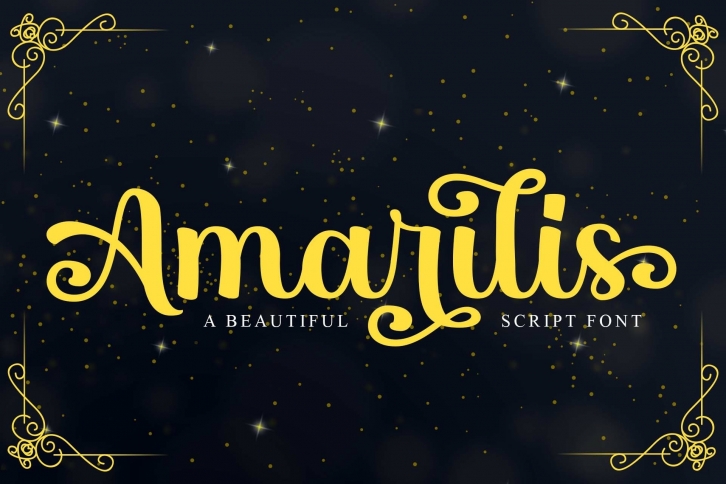
Amarilis is a great font that was designed by Mas Fik. Imagine the amount of combinations you can create using this font! The archive is 21.71 MB and it was released on May 24, 2021. Amarilis looks beautiful on wedding invitations, greeting cards, logos, posters, labels, t-shirt designs, logos, business cards and is perfect for use in ink or watercolor works, fashion, magazines, packaging and food menus, children's books and more!